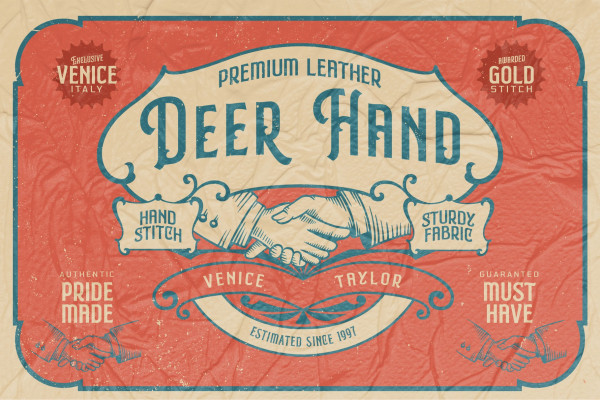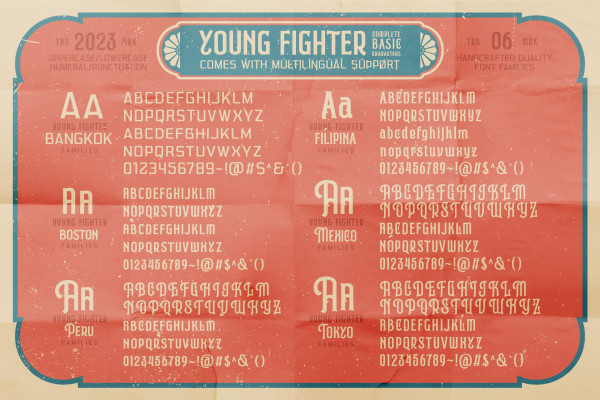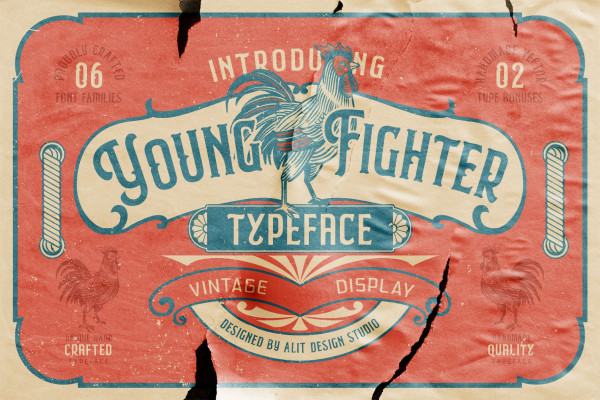
Young Fighter Font
Young Fighter Font Family – A Vintage Display Typeface with 6 Distinct Styles and Bonus Vector Illustrations!
YoungFighter Font Family, a carefully crafted vintage display typeface that brings a touch of nostalgia to your designs. This versatile font family features 6 unique styles, each designed to capture the essence of classic typography while adding a modern twist. With a seamless blend of serif, display, sans serif, and dingbat ornament options, the “Young Fighter” Font Family offers unparalleled versatility for your creative projects.